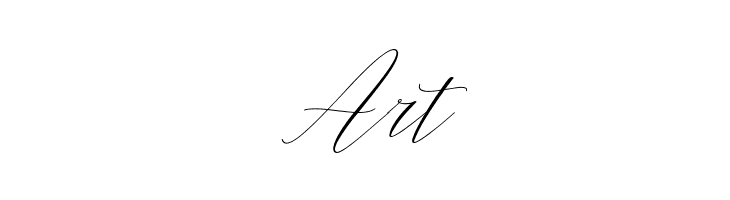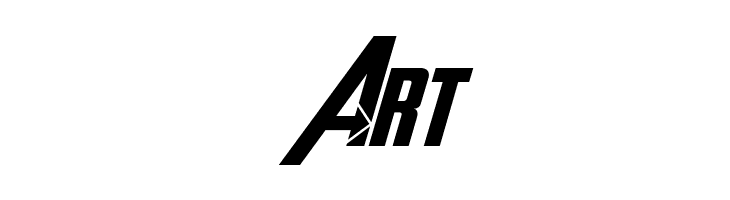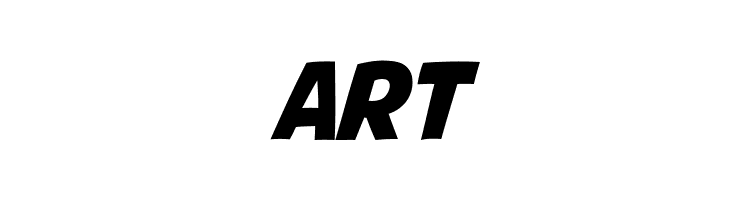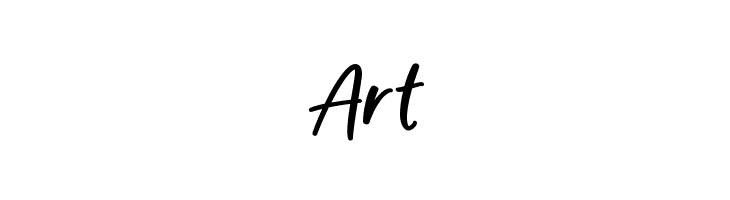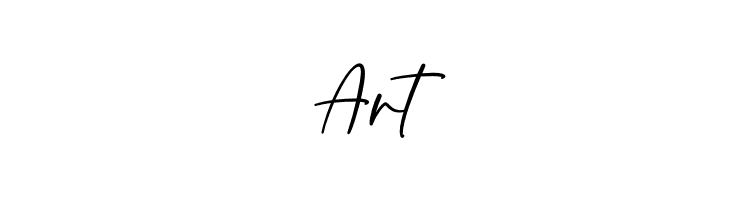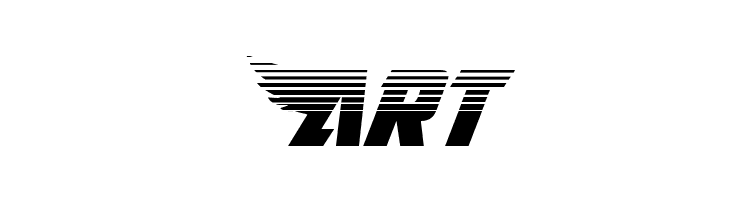
A refined, slanted script font with elegant, flowing cursive strokes.
A bold, slanted font with a dynamic and energetic style.
A bold, brush-style script font with dynamic, slanted characters.
A bold, dynamic font with angular lines and a slanted orientation, perfect for impactful designs.
A bold, slanted font with a dynamic and powerful style.
A bold, brush-style font with dynamic, slanted strokes.
A lively, handwritten font with smooth curves and a dynamic, slanted style.
A casual, elegant handwritten font with smooth, flowing lines and a slightly slanted style.
A charming, handwritten style with smooth, slanted strokes.
A bold, slanted font with a halftone effect and dynamic, modern design.